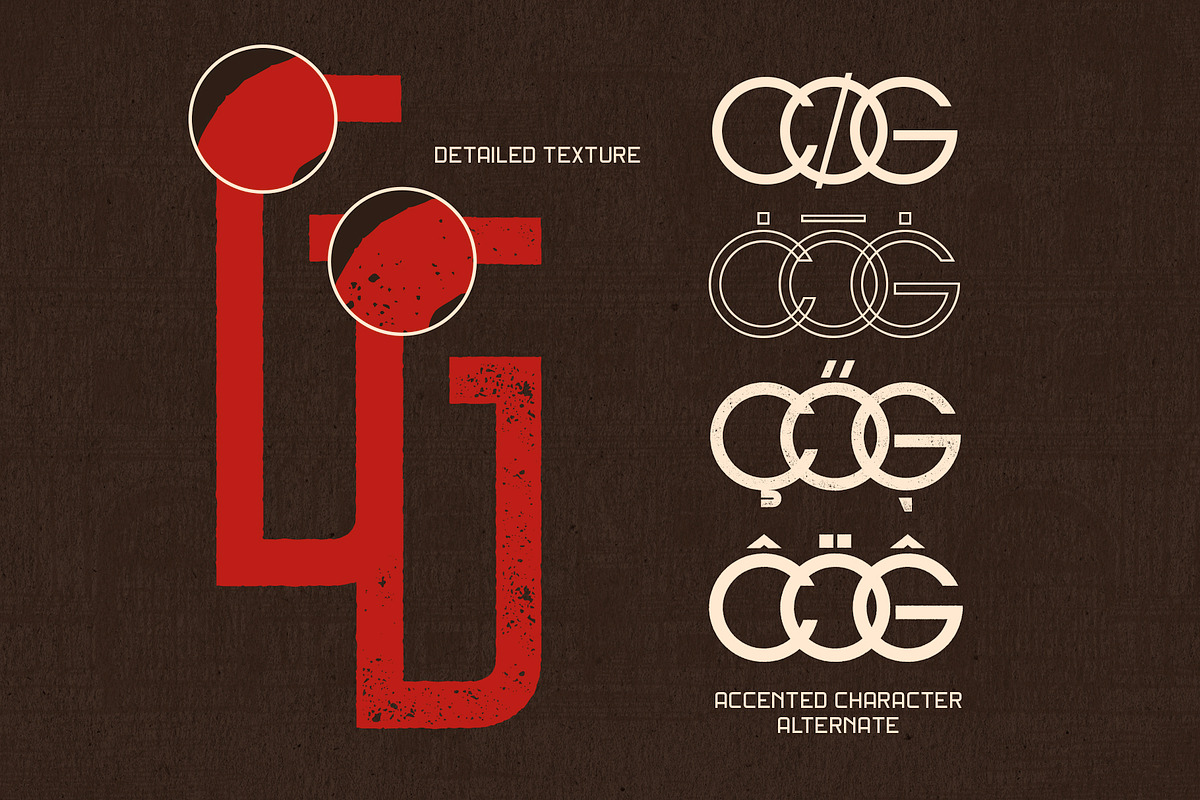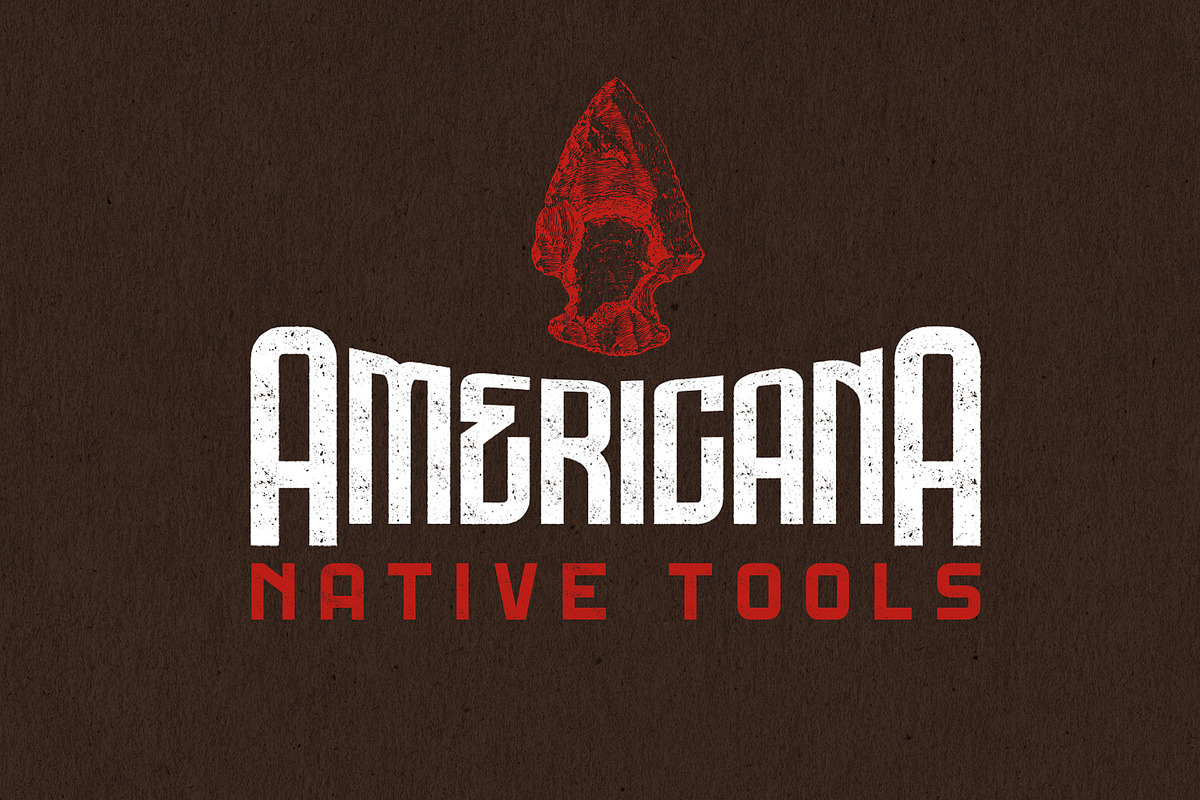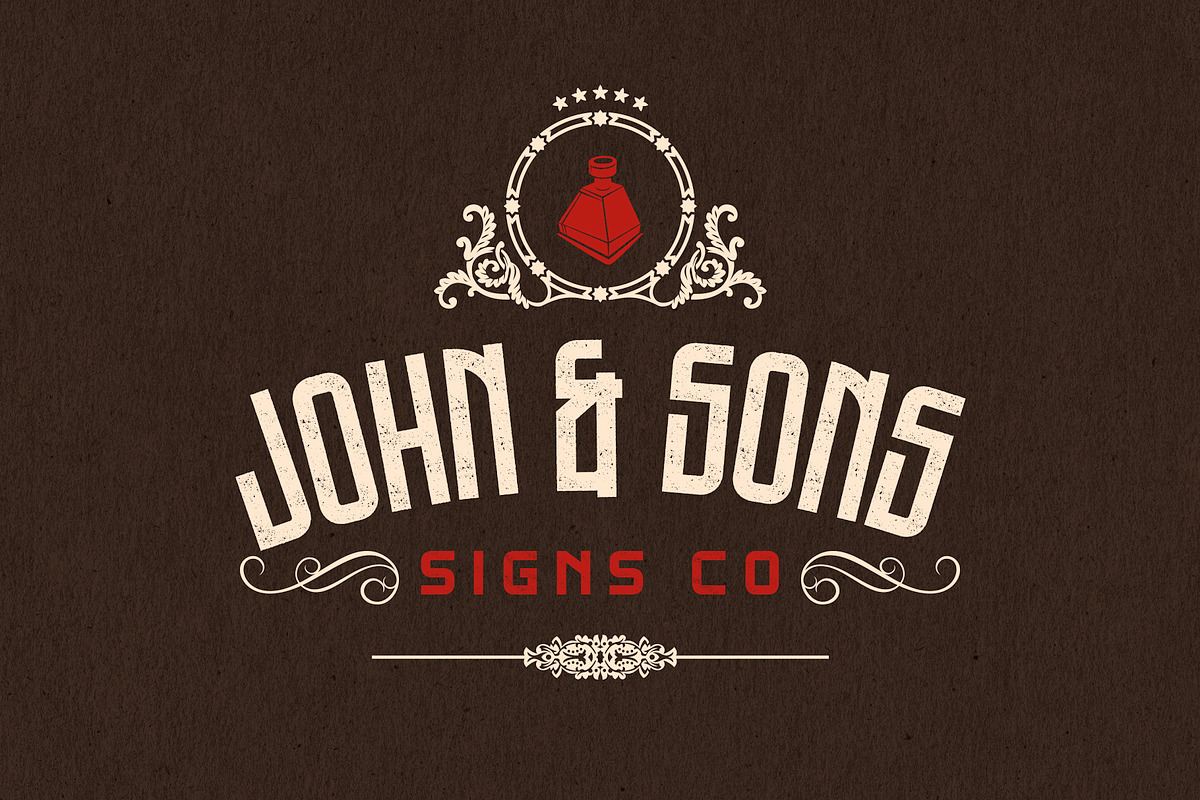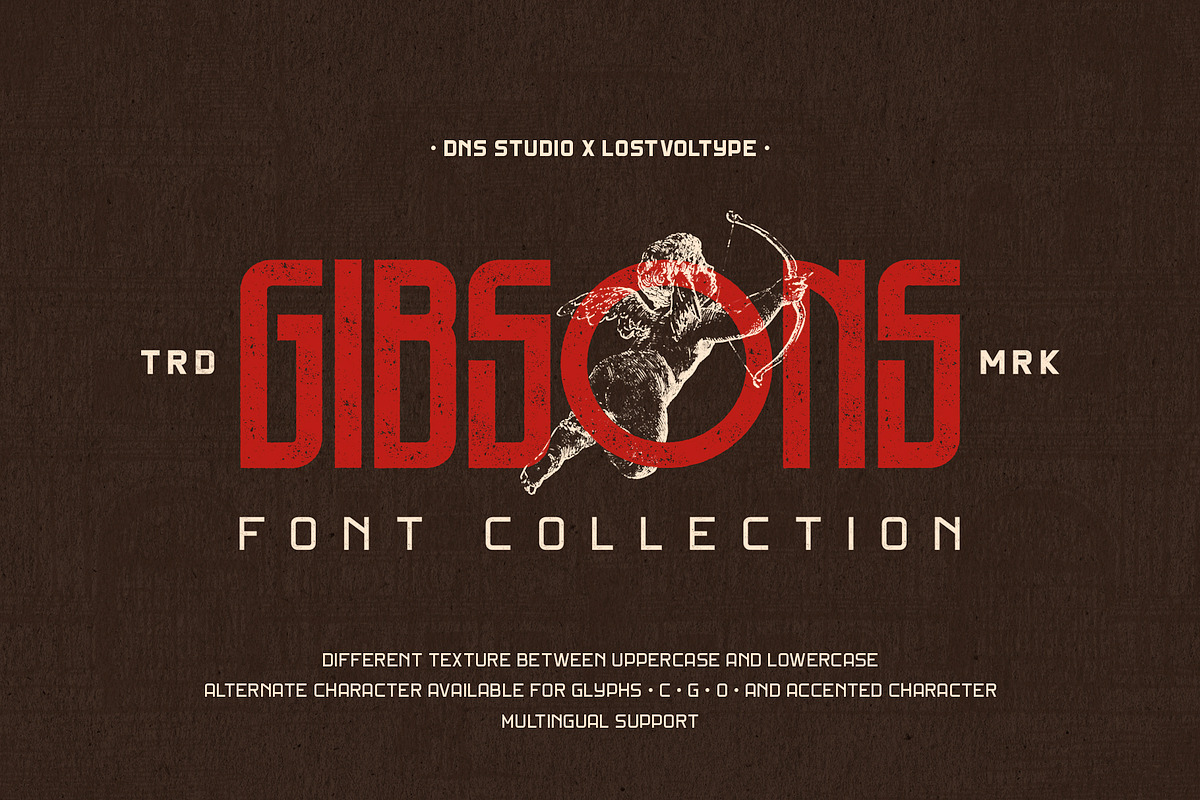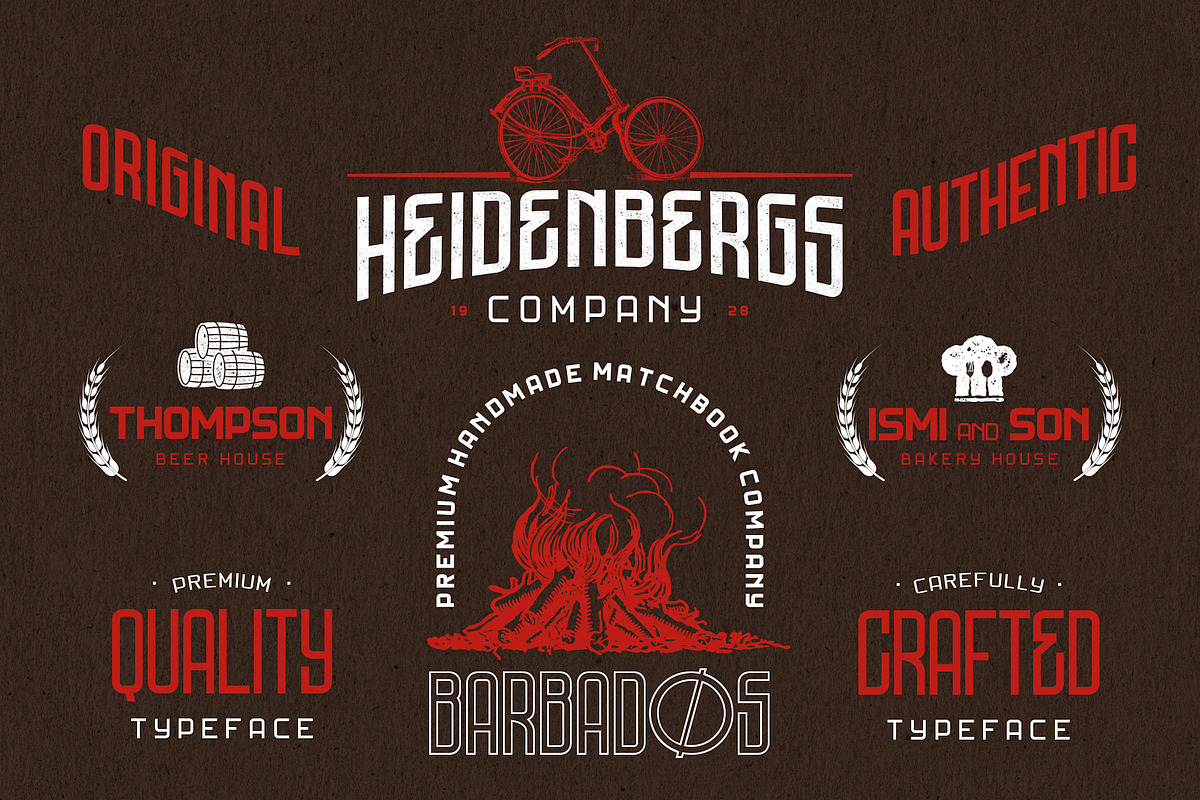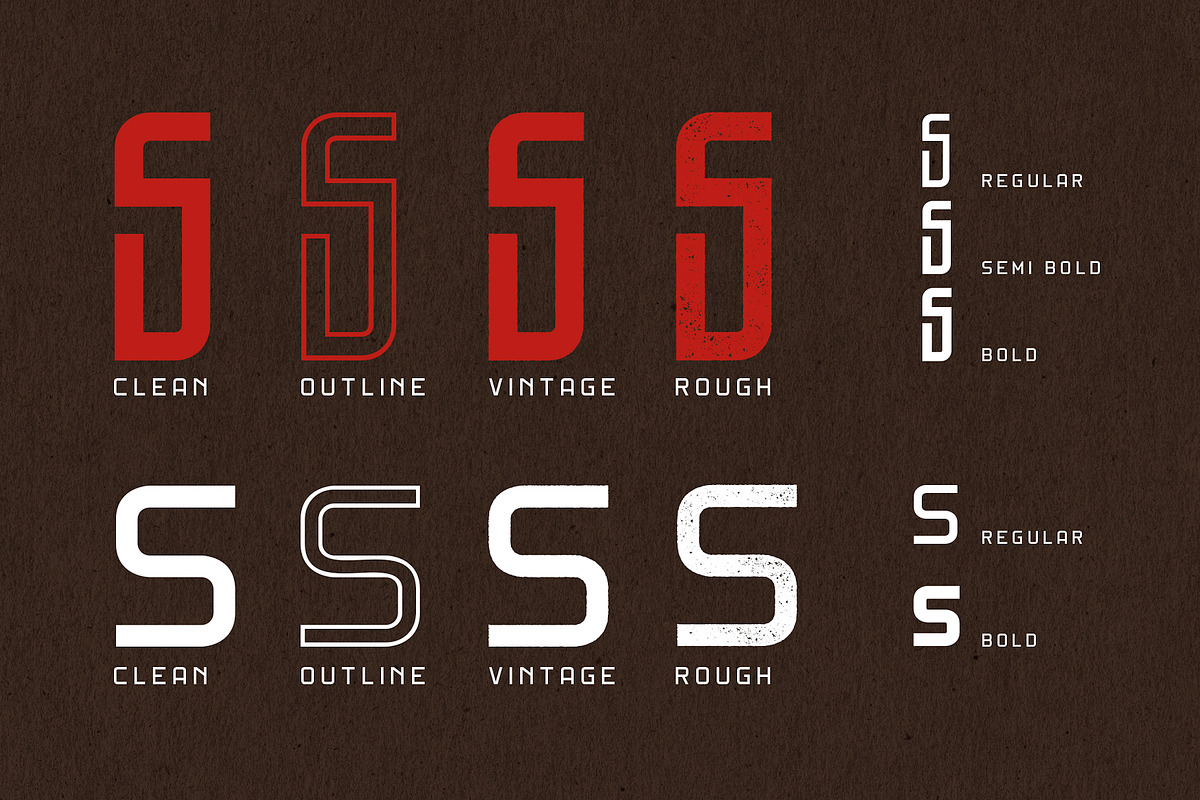
Gibsons Font Collection
After several months we created a brand new font Gibsons Font Collection includes 20 fonts on the package. The fonts have two & three weight from regular, semi-bold, and bold version. And what a great news is every weight have 4 styles fill (of course), outline, vintage (rough edge) and rough (textured). The font perfectly paired, a tall font combined with short font is the best combination. We also do not forget to add alternate character for the feature.
Gibsons 01 Regular (fill, outline, rough, vintage)
Gibsons 01 Semi-Bold (fill, outline, rough, vintage)
Gibsons 01 Bold (fill, outline, rough, vintage)
Gibsons 02 Regular (fill, outline, rough, vintage)
Gibsons 02 Bold (fill, outline, rough, vintage)